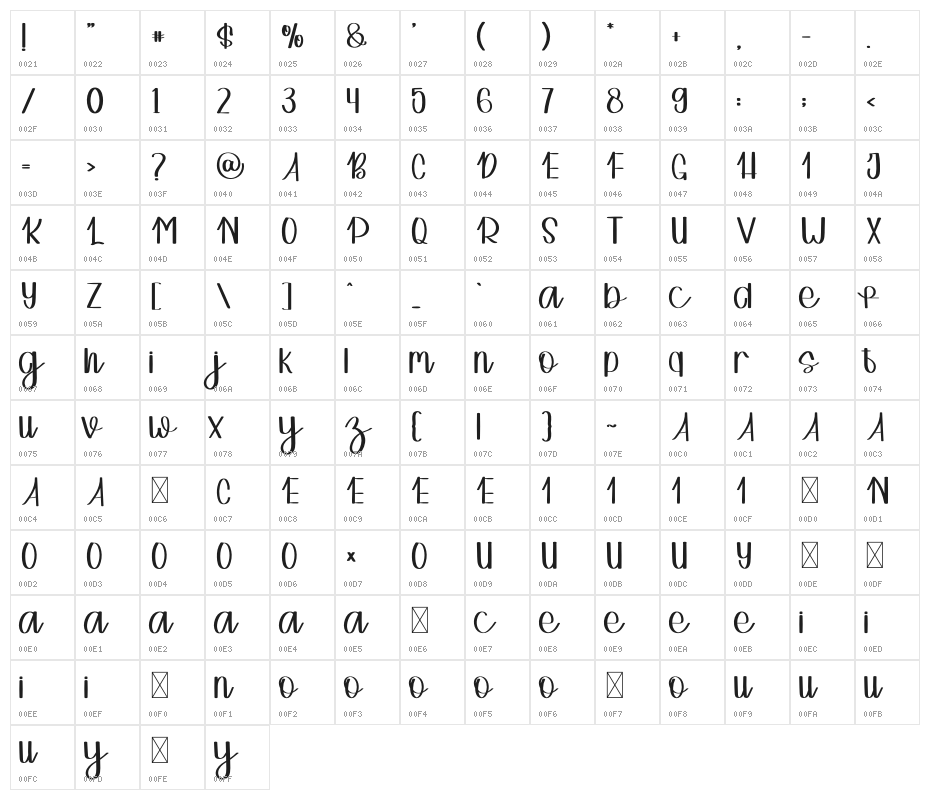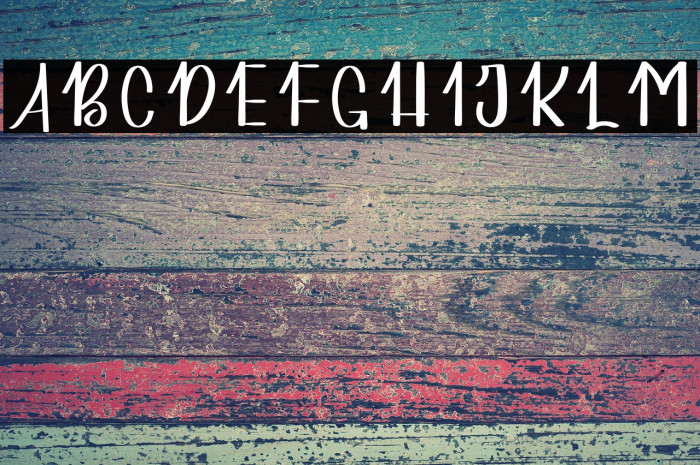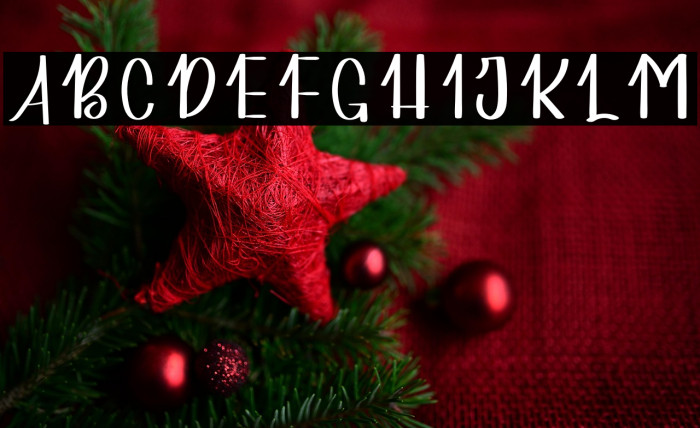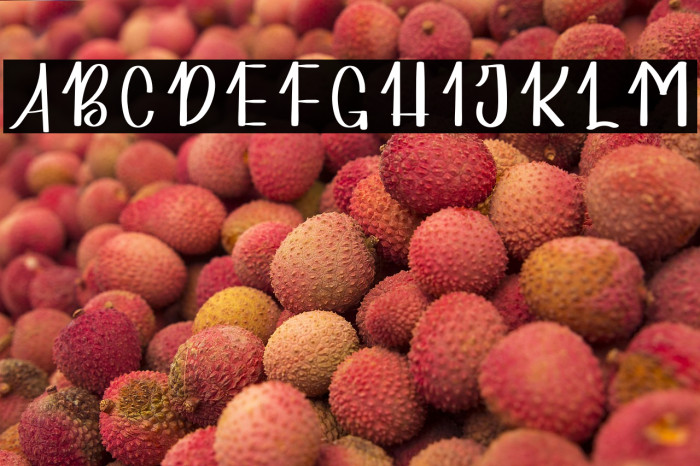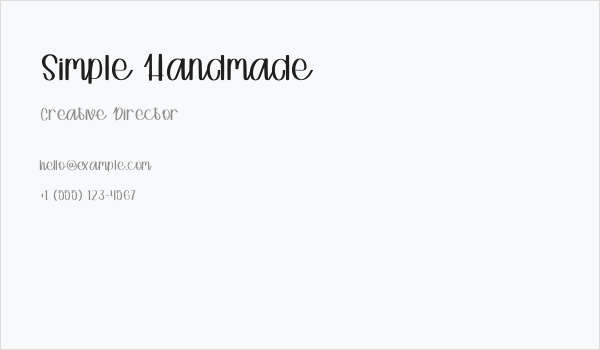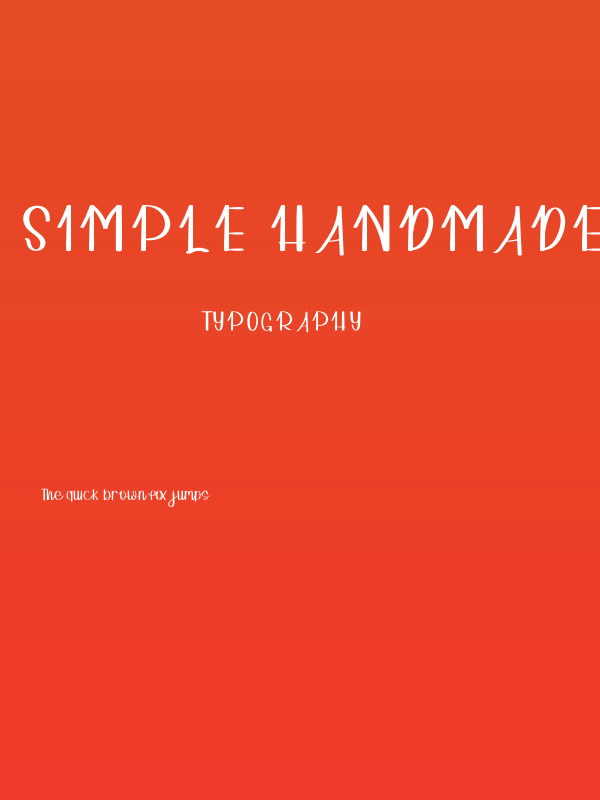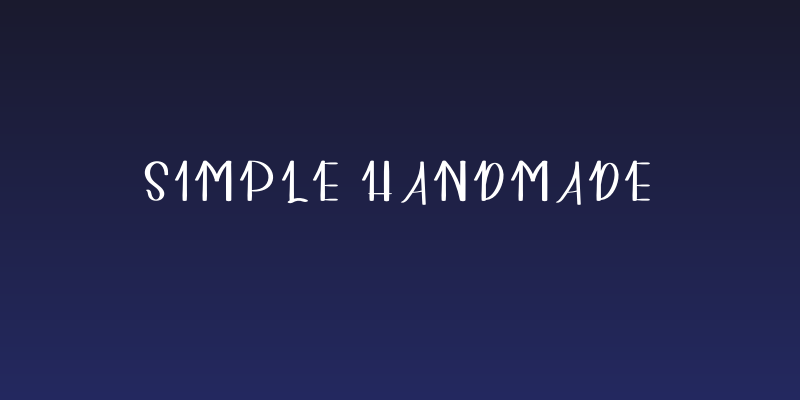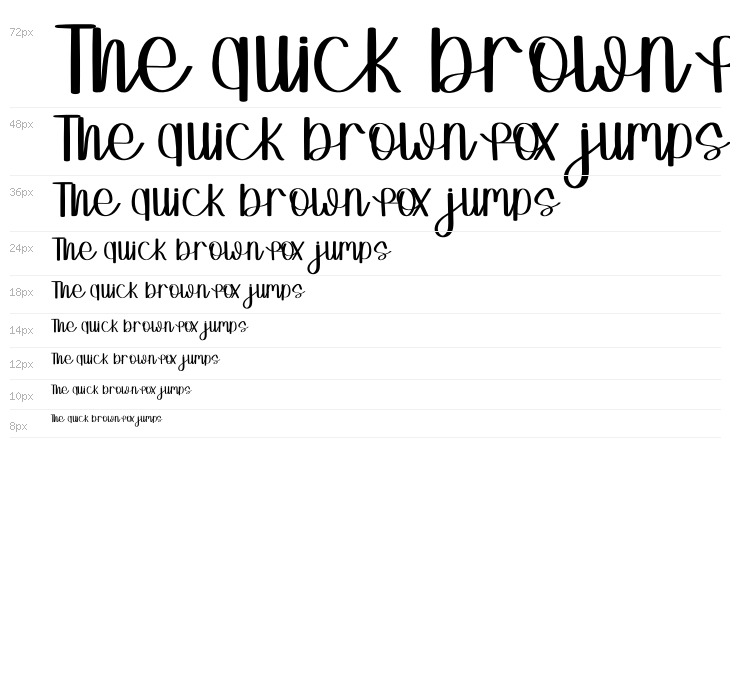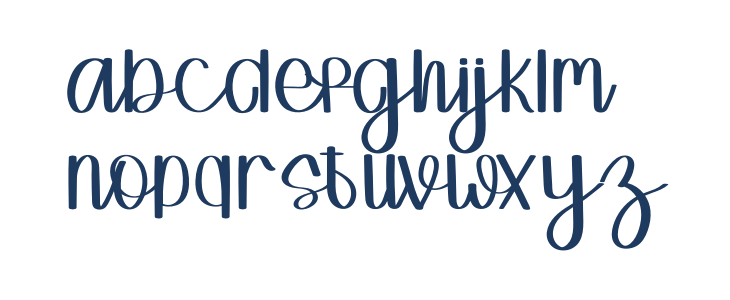
Simple Handmade Font
Simple Handmade Description
This font exudes a playful and whimsical charm, characterized by its handwritten style that mimics the fluidity of casual script. The uppercase letters are bold and slightly irregular, adding a touch of spontaneity and creativity. The lowercase letters are more fluid, with some letters featuring loops and curls that enhance the font's handmade aesthetic. Numbers are consistent with the overall style, maintaining the playful and informal vibe. Special characters are creatively designed, fitting seamlessly with the rest of the font. This font is perfect for projects that require a personal touch, such as greeting cards, invitations, or playful branding.
| Proposed Projects | Ideal for greeting cards, invitations, playful branding, and personal projects. |